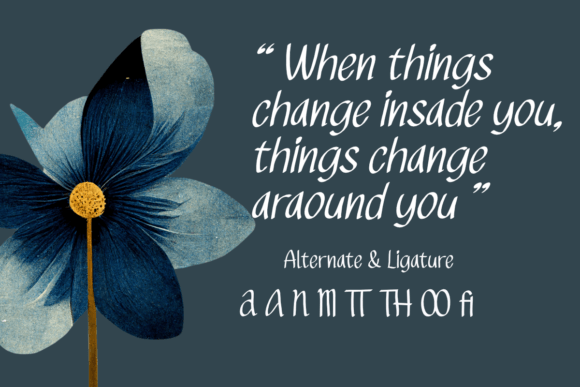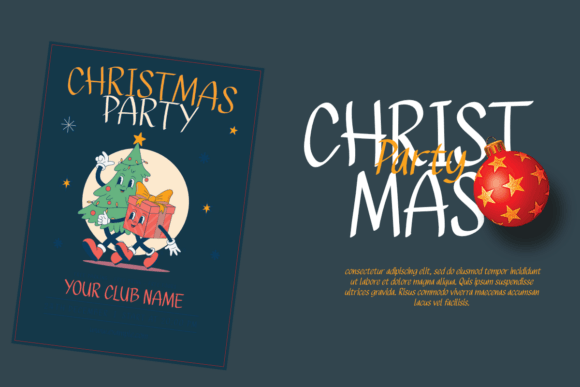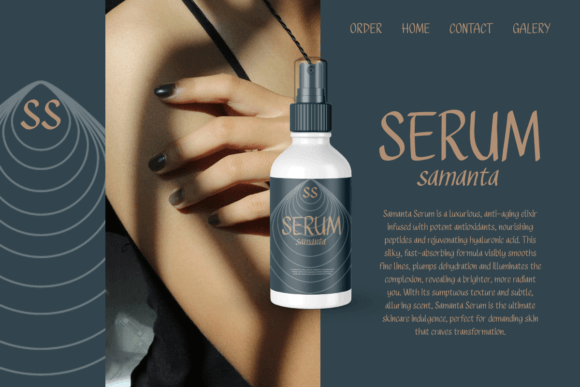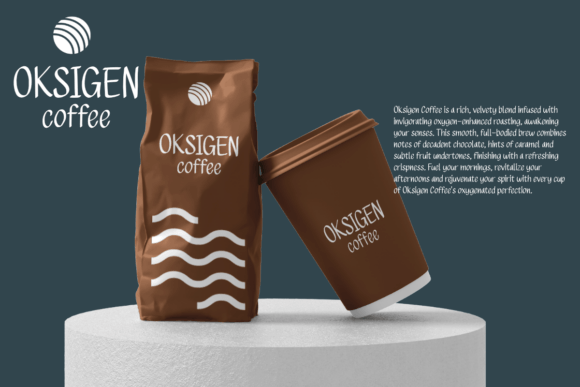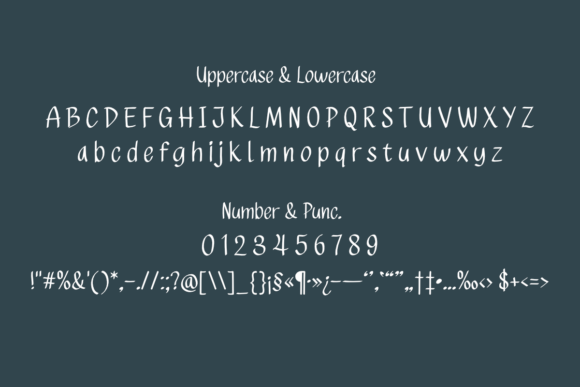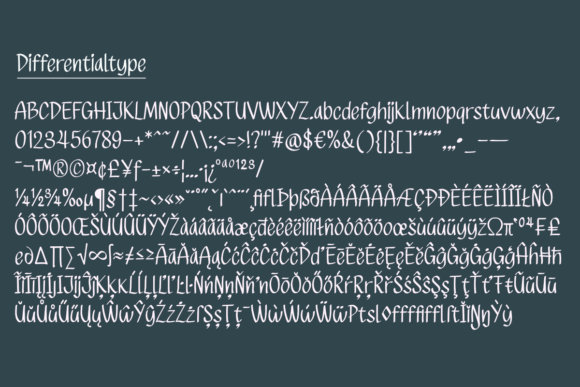
Introduction to Salaisih Font
Have you ever stared at a blank canvas, desperately searching for the perfect font to bring your creative project to life? The cursor blinks, taunting you with its silence, until – suddenly – a spark of inspiration strikes, and you find yourself swept away by the charm of a new font. For designers, this moment is priceless, and it’s exactly what the Salaisih Font promises to deliver: a world of possibilities, where creativity knows no bounds.
As a design resource, Salaisih Font is a game-changer, offering a high-quality, free download that can elevate any project with its unique, handwritten style. With a transparent background and a touch of whimsy, Salaisih Font is perfect for designers who crave a little extra magic in their designs. Whether you’re working on a children’s book, a product label, or a festive invitation, Salaisih Font is sure to bring a smile to your face and a dash of personality to your creations.
Key Features of Salaisih Font
- High-quality, free font designed specifically for creative projects and design resources.
- Unique, elegant script font with a transparent background, perfect for adding a touch of sophistication to your designs.
- Includes a wide range of characters, including uppercase and lowercase letters, numbers, and punctuation marks, making it suitable for various design applications.
Honest Review: Salaisih Font
- ✨ The Salaisih Font has a unique and modern design that can add a touch of sophistication to any project.
- ✨ The font is highly customizable, making it a great choice for designers who want to create a unique look.
- ⚠️ The font may not be suitable for projects that require a transparent background, as it may not render well.
Overall, I’m impressed with the Salaisih Font. It’s a great addition to any designer’s toolkit, and its unique design makes it a standout choice for creative projects. While it may have some limitations, I think it’s definitely worth considering for designers who want a high-quality, free design resource.
Tips for Getting the Most Out of Salaisih Font
To get the most out of the Salaisih Font, use it in conjunction with other design elements to create a cohesive look. Experiment with different font sizes, colors, and styles to find the perfect combination for your project.
The Salaisih Font is perfect for use in branding materials, social media graphics, and other design projects where a high-quality, transparent font is needed.